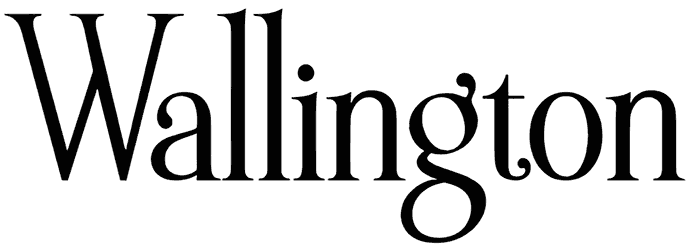
Wallington Font
Wallington font is that classic look that you’ve seen in retro movie designs. This fancy classic font has a set of groovy characters and has vintage and eye-catching letters, which will convey an elegant look to your reader.
You can use it for classic movie and book titles, theater and opera posters and flyers, and product packaging. Every letter in Wallington starts with longer elements and ends in curly lines.